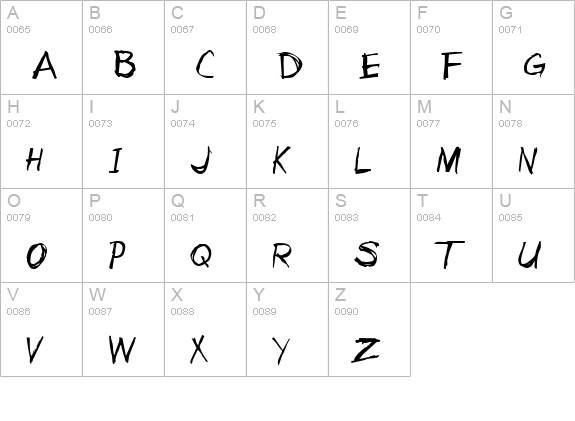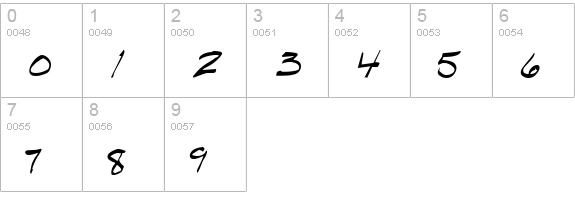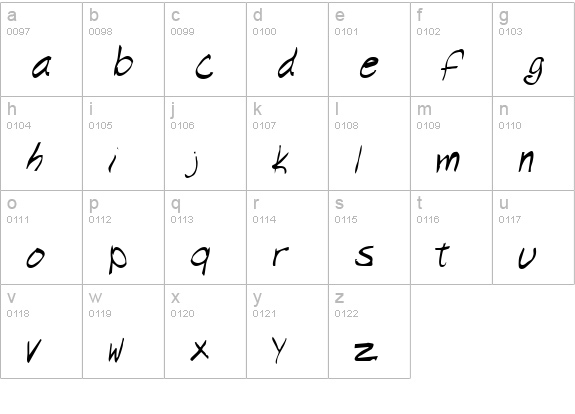
Handwrite-Marker font is a beautifully crafted typeface that effortlessly blends the charm of handwritten script with the boldness of a marker. Its smooth and flowing strokes capture the essence of a hand-drawn aesthetic, making it ideal for adding a personal touch to any design project. This versatile font is perfect for a wide range of applications, including logos, branding, headlines, posters, and more. Its unique style brings a sense of authenticity and warmth to any design, creating a captivating visual experience for your audience. Handwrite-Marker font is not only visually appealing, but it is also incredibly easy to use. With its clean and legible letterforms, it ensures readability while maintaining a distinct handwritten feel. Its generous spacing and well-defined characters make it a joy to work with, allowing you to effortlessly bring your creative ideas to life. What makes Handwrite-Marker font even more appealing is that it is available for free download at FontsMarket.com. This means that you can easily access and use this stunning typeface without any cost or restrictions. Whether you are a professional designer or a hobbyist, Handwrite-Marker font offers you the freedom to express your creativity without limitations. So, why wait? Download Handwrite-Marker font from FontsMarket.com today and elevate your designs to a whole new level. With its unique blend of handwritten elegance and marker boldness, this font is sure to make a lasting impression on your audience. Enjoy the freedom of creativity that comes with Handwrite-Marker font and let your imagination soar.